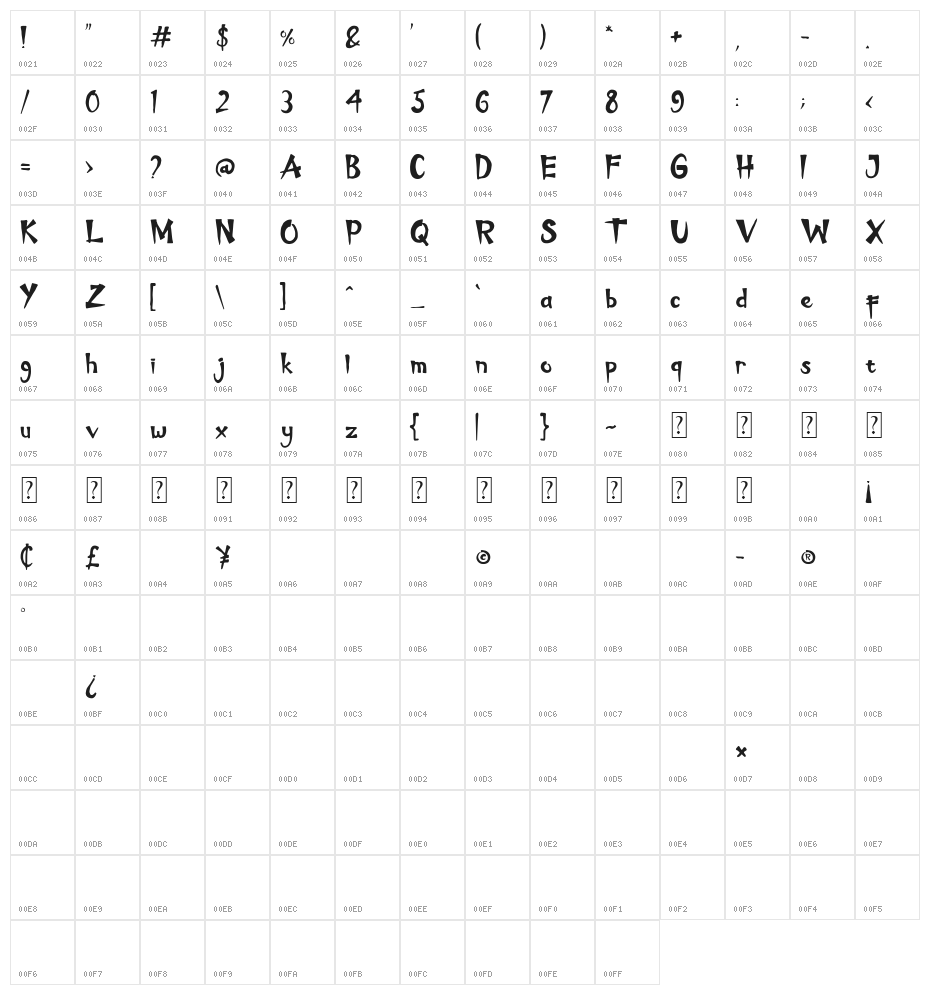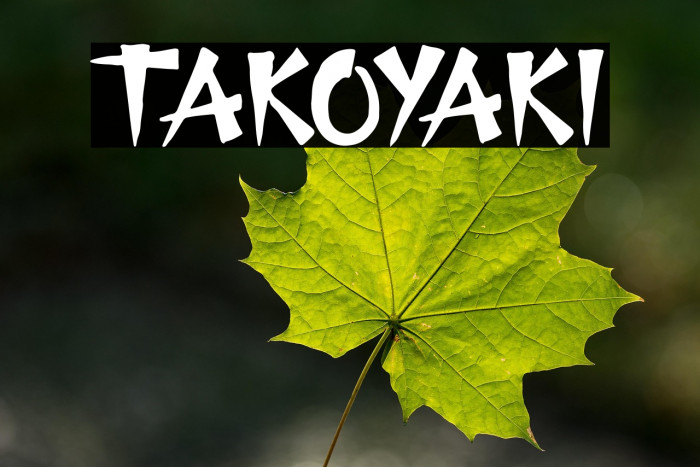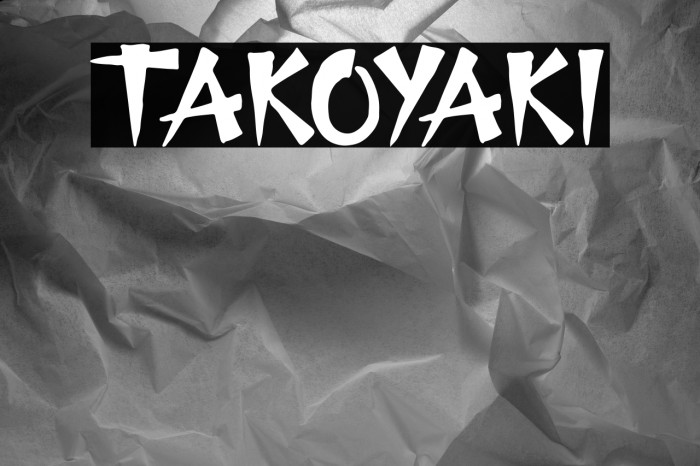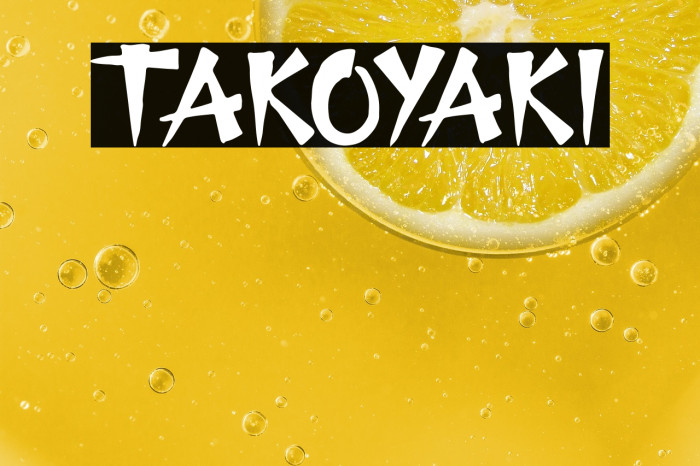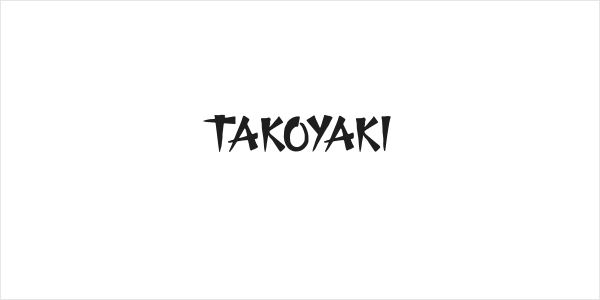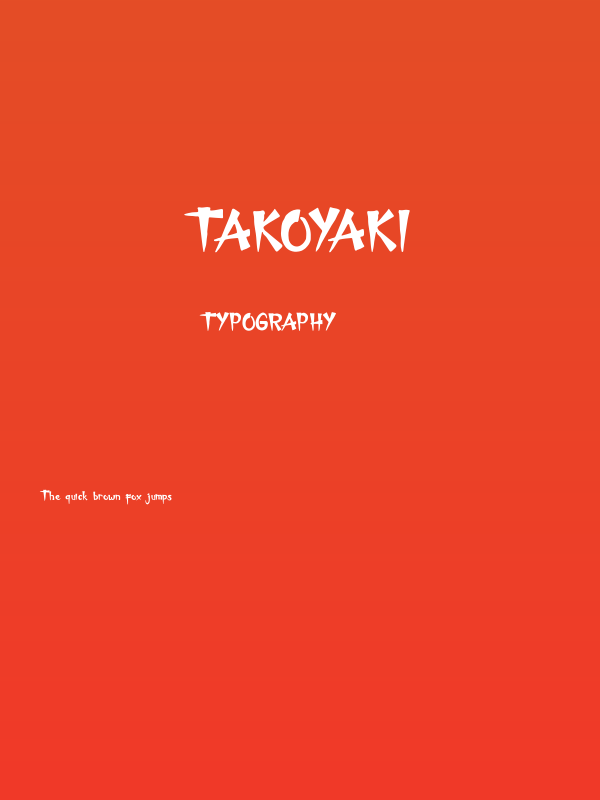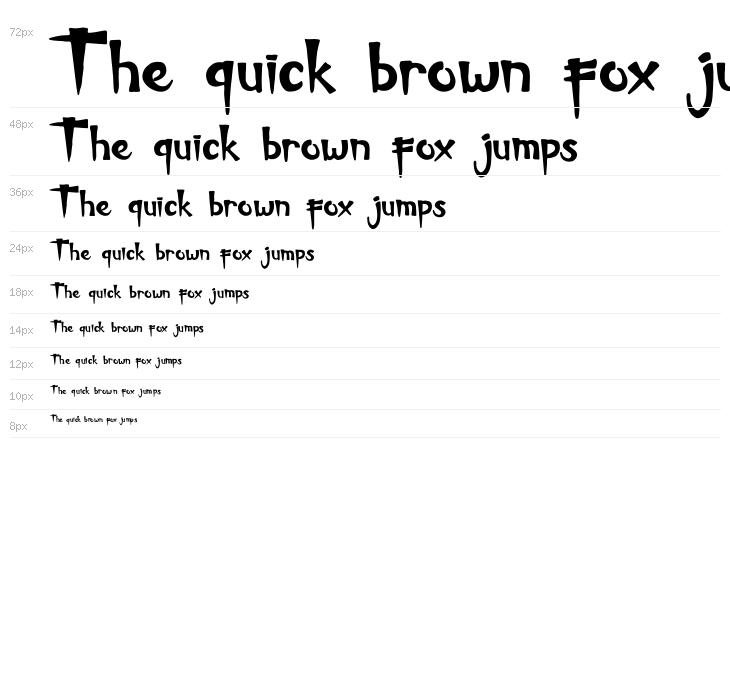
TAKOYAKI Font
TAKOYAKI Description
This font features a playful and dynamic style, characterized by its bold and irregular strokes. The letters have a hand-drawn appearance, with varying thicknesses that add a sense of movement and energy. The uppercase letters are bold and slightly slanted, while the lowercase letters maintain a consistent whimsical style. Numbers and special characters follow the same playful design, making the font suitable for creative and informal projects. The overall design is eye-catching and unique, perfect for adding a touch of fun to any text.
| Overall Style | Playful, Creative |
| Use Case | Headlines, Posters, Branding |
| Proposed Projects | Ideal for children's books, playful branding, event posters, and creative social media graphics. |